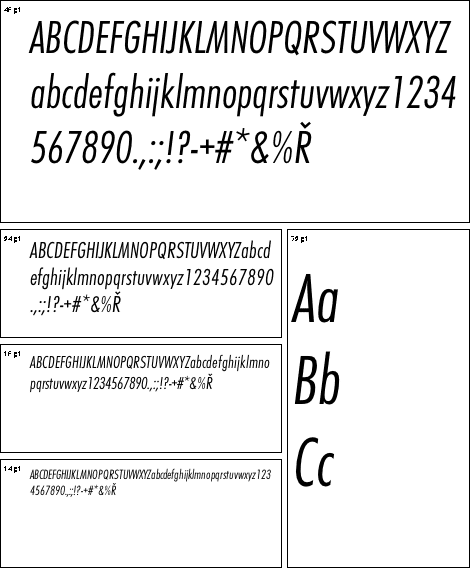
Futura Light Condensed Oblique (URW)
Futura is a geometric sans-serif typeface designed between 1924 and 1926 by Paul Renner. It is based on geometric shapes that became representative visual elements of the Bauhaus design style of 1919–1933. Commissioned by the Bauer type foundry, Futura was commercially released in 1927. The family was originally published in Light, Medium, Bold, and Bold Oblique fonts in 1928. Light Oblique, Medium Oblique, Demibold, and Demibold Oblique fonts were later released in 1930. Book font was released in 1932. Book Oblique font was released in 1939. Extra Bold font was designed by Edwin W. Shaar in 1952. Extra Bold Italic font was designed in 1955 by Edwin W. Shaar and Tommy Thompson. Futura has an appearance of efficiency and forwardness. The typeface is derived from simple geometric forms (near-perfect circles, triangles and squares) and is based on strokes of near-even weight, which are low in contrast. (This is most visible in the almost perfectly round stroke of the o, but the shape is actually slightly ovoid.) In designing Futura, Renner avoided the decorative, eliminating non-essential elements. The lowercase has tall ascenders, which rise above the cap line. The uppercase characters present proportions similar to those of classical roman capitals. Futura's success spawned a range of new geometric sans-serif typefaces from competing foundries, and remains one of the most used sans-serif types into the twenty-first century. Futura remains an important typeface family and is used on a daily basis for print and digital purposes as both a headline and body font.FONTHAUS END USER LICENSE AGREEMENT